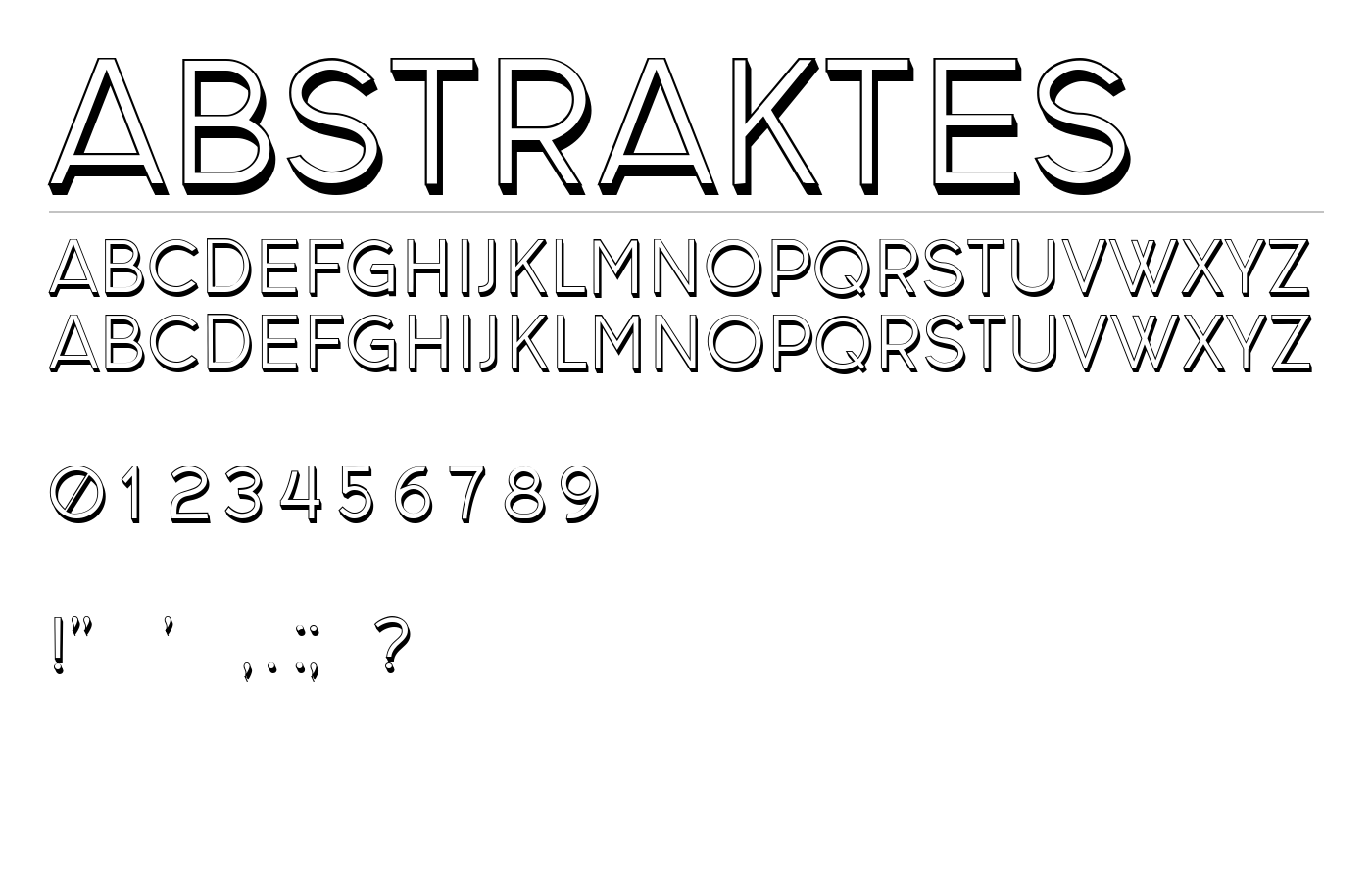
Abstraktes Font is a modern, geometric sans serif with an eye-catching layered shadow effect that adds depth and a sense of dimensionality. Its clean lines and open letterforms give it a contemporary, slightly playful vibe, making it ideal for bold headlines, branding, and designs that seek a stylish yet approachable look. This font works especially well in creative projects and editorial layouts where strong visual impact is key.
Abstraktes Font
About Abstraktes Font
| Font family | Abstraktes Font |